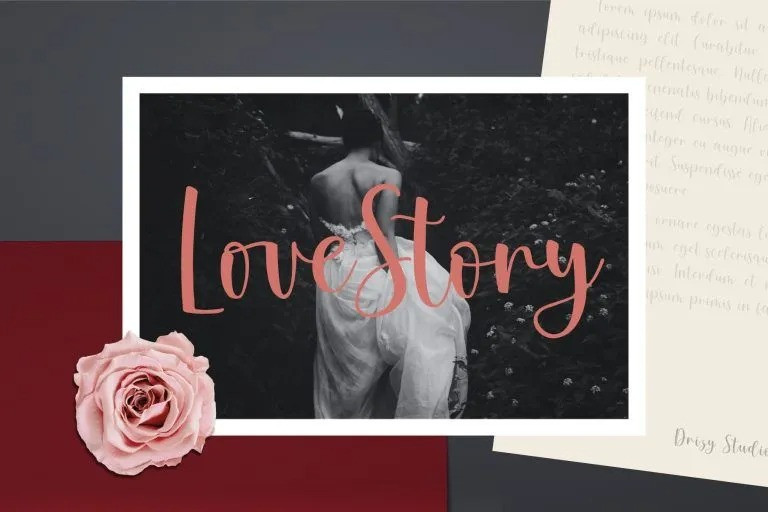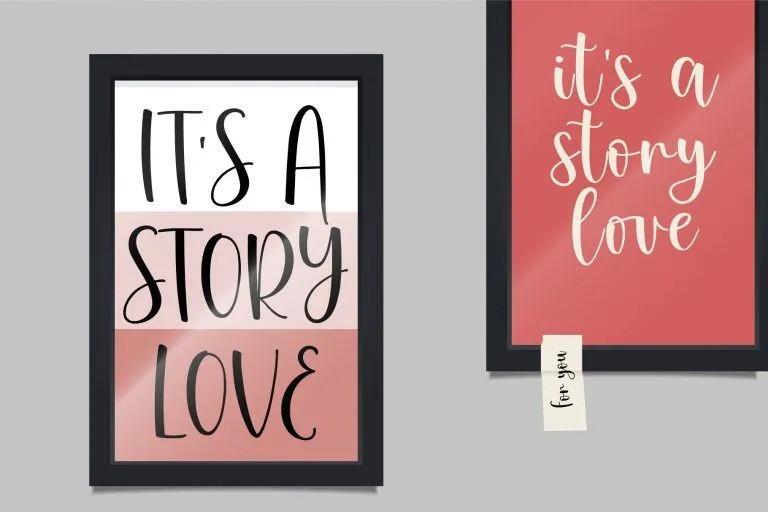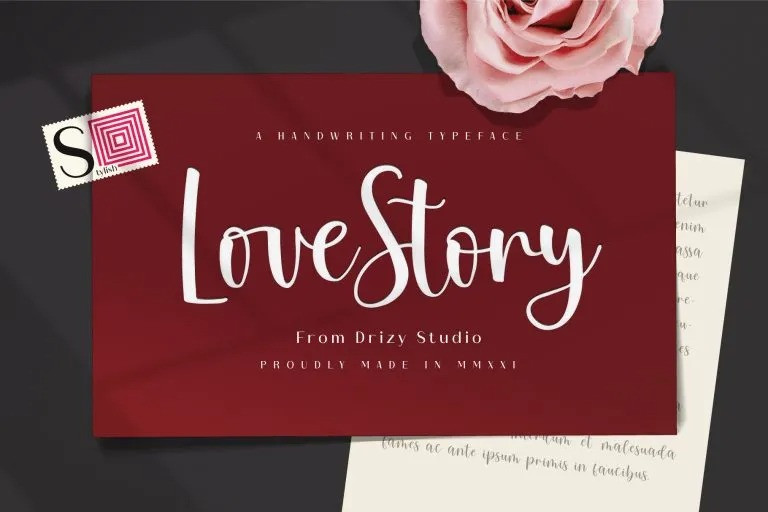
Love Story Font
Grab our new font Love Story script font is a special font for romantic look display. Offering all the basic styles you will need for a successful project.